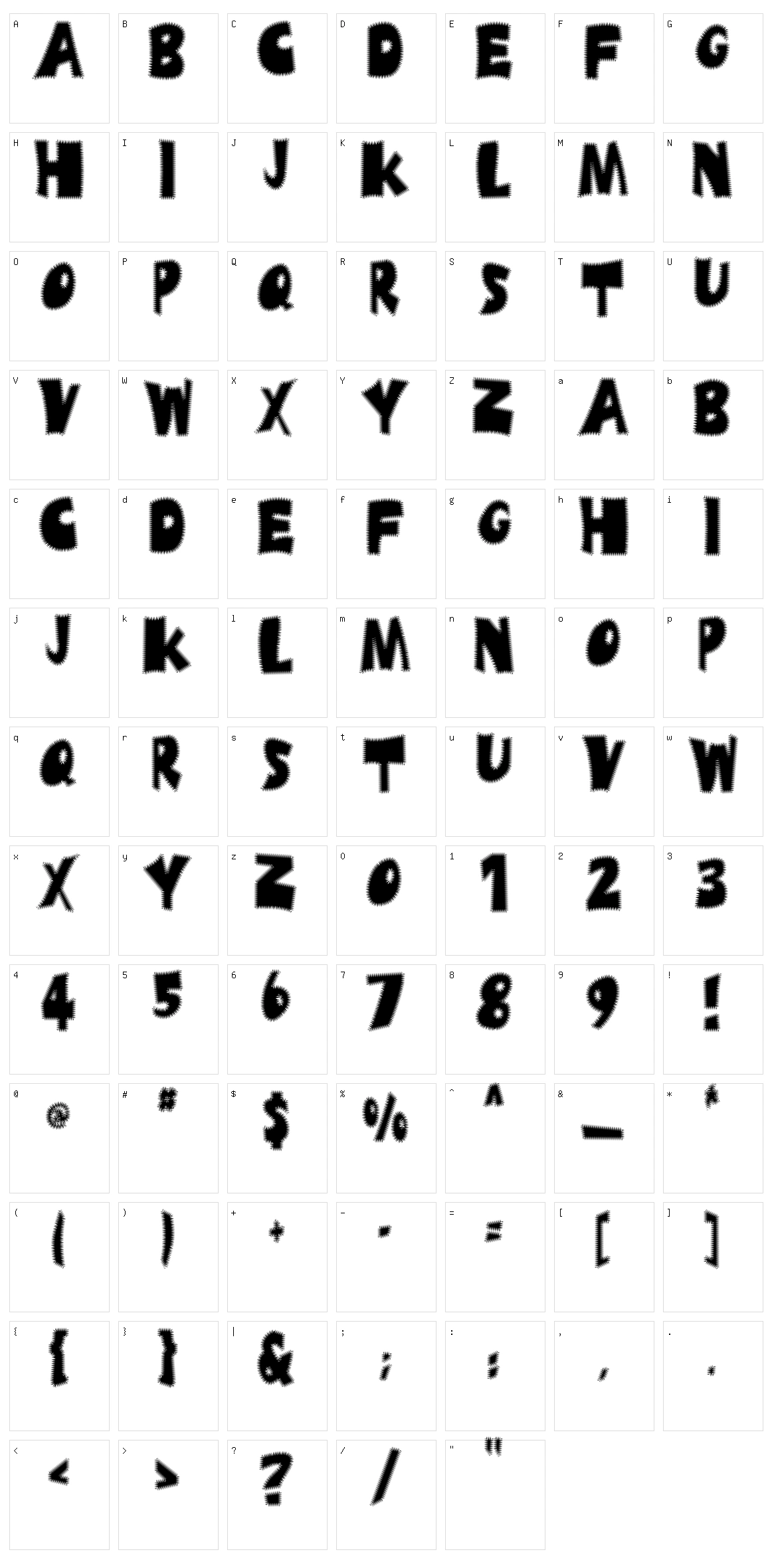
The free font Ufrayd is carefully designed by Rafi Quibel, showcasing a thoughtful balance of creativity and usability and falls under the Horror font style. When you download the ZIP file, it contains only 35.52 KB of font files, making it lightweight and quick to download. Please review the license details below to understand permitted usage and distribution rights. If license information is not available, we recommend using this font for personal projects only or contacting the author directly for commercial usage permissions.